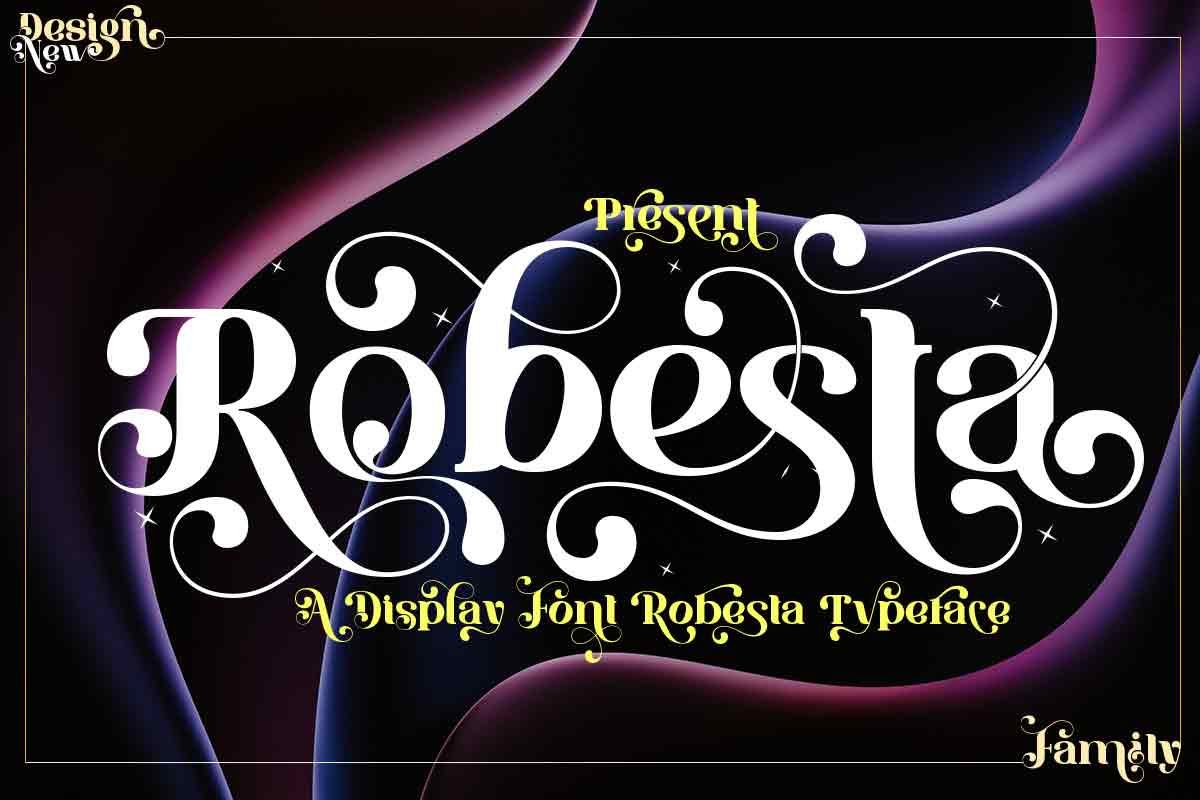
Robesta Free Download
Robesta Font Free Download is a bold and modern serif typeface designed to make a strong statement in any design project. With its sharp edges, clean lines, and powerful presence, Robesta is perfect for logos, posters, branding, headlines, and editorial layouts that demand attention.
This versatile font offers a contemporary look with a touch of traditional elegance, making it suitable for both digital and print applications. Whether you're designing a cutting-edge brand identity or a classic editorial spread, Robesta adds strength and sophistication to your typography.